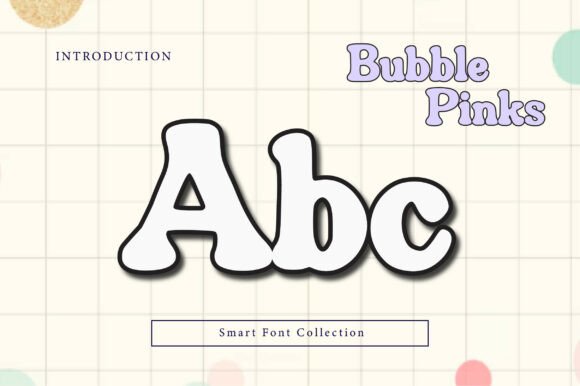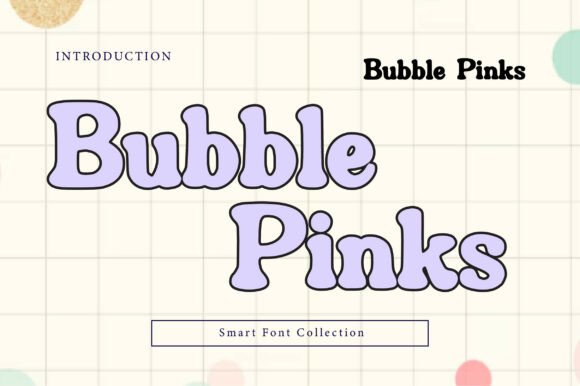
Bubble Pinks Font: A Retro Pop Delight for Modern Designs
The Bubble Pinks font is a delightful throwback to retro pop aesthetics and playful, high-energy design. This Bubble Pinks typeface—specifically shown in its hollow, outlined form—is all about volume and fun. It captures the “bubbly” personality of 90s stickers and early 2000s y2k culture, making it an instant hit for Gen-Z targeting brands or children’s products.
The Charm of Bubble Pinks Font
The Bubble Pinks font creates a massive visual impact without feeling heavy, thanks to its airy outline style that allows the background colors or patterns to peek through the letters. Using the Bubble Pinks typeface in your designs is like adding a splash of neon to a grey room. It is the perfect candidate for layering; try placing a solid color version behind the outline to create a “sticker” effect that pops off the page.
Ideal Applications for Bubble Pinks Font
This font is an ideal choice for event flyers, toy packaging, or vibrant social media stickers. Its playful and energetic vibe makes it perfect for designs that require a fun and youthful touch. Whether you’re creating a flyer for a music festival, designing a logo for a kids’ toy brand, or crafting a sticker for a social media campaign, the Bubble Pinks font is sure to make your design stand out.
Maximizing the Charm of Bubble Pinks Font
To maximize its charm, pair the Bubble Pinks font with bright, saturated color palettes and geometric patterns. This will help to create a visually appealing design that is sure to grab attention. The font’s hollow outline style allows for endless creative possibilities, making it a versatile choice for designers and crafters.
Design Tips and Tricks
Here are some design tips and tricks to help you get the most out of the Bubble Pinks font:
- Layering: Experiment with layering the font over different background colors or patterns to create a unique and eye-catching design.
- Color Palette: Pair the font with bright, saturated colors to create a bold and playful design.
- Geometric Patterns: Add geometric patterns to your design to create a visually appealing and dynamic layout.
- Texture: Experiment with different textures, such as glitter or holographic effects, to add an extra layer of depth to your design.
The Benefits of Using Bubble Pinks Font
The Bubble Pinks font offers a range of benefits for designers and crafters, including:
- Instant Recognition: The font’s unique and playful style makes it instantly recognizable and memorable.
- Versatility: The font’s hollow outline style allows for endless creative possibilities, making it a versatile choice for a range of design applications.
- Emotional Connection: The font’s fun and youthful vibe helps to create an emotional connection with the target audience, making it perfect for designs that require a playful touch.
The Bubble Pinks font is a delightful throwback to retro pop aesthetics and playful, high-energy design. Its unique and playful style makes it an instant hit for Gen-Z targeting brands or children’s products. With its airy outline style and endless creative possibilities, this font is perfect for designers and crafters looking to add a splash of fun and personality to their designs. Whether you’re creating a flyer, logo, or sticker, the Bubble Pinks font is sure to make your design stand out.